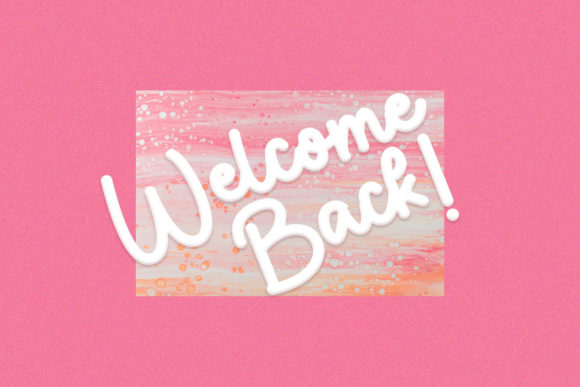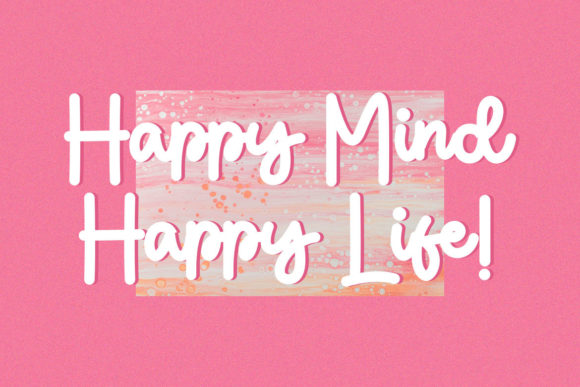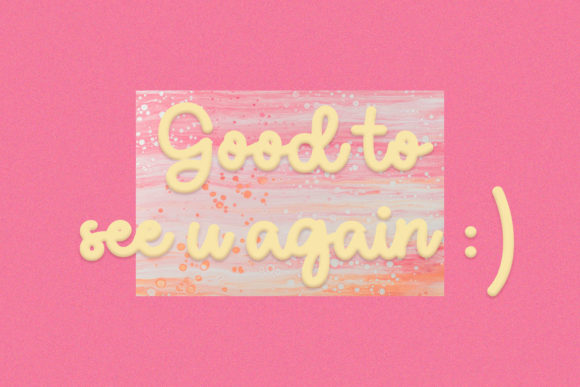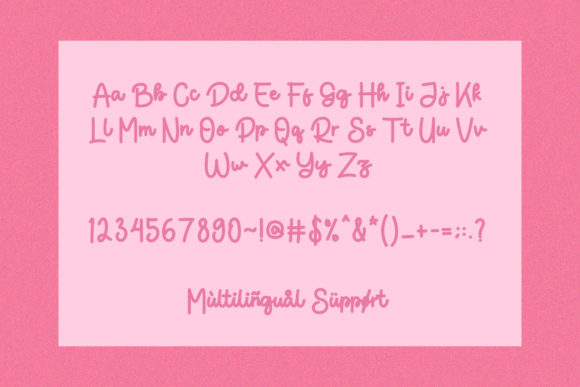
The Perfect Brush Stroke: Unlocking the Potential of Donathe Font
Have you ever been working on a project, staring at a blank page or screen, and suddenly, a spark of creativity strikes? The words flow effortlessly, and your design comes to life in a way that feels almost magical. That’s what happens when you have the right tools at your disposal – and the Donathe Font is one of those game-changing assets.
This charming, cursive paint-brushed handwritten font is more than just a pretty face. It’s a versatile and valuable addition to any designer’s library, capable of elevating even the simplest creations into something truly special. Whether you’re working on a children’s book, a wedding invitation, or a social media campaign, Donathe Font has the potential to add a touch of warmth and personality to your work.
- Unique Characteristics: Donathe Font features a unique, hand-drawn style with intricate details and subtle nuances, giving it a distinctive and elegant appearance.
Donathe Font Review
Donathe Font is an elegant script font that caught my attention with its ✨ delicate curves and refined feel. The font is perfect for creating a sophisticated and luxurious atmosphere, making it ideal for branding, packaging, and advertising.
Here are some features that work well:
- ✨ Elegant and refined feel, perfect for luxury brands
- ✨ Delicate curves and beautiful letterforms
- ✨ Suitable for various applications, including branding, packaging, and advertising
- ⚠️ Limited font sizes and weights, which may limit its versatility
- ⚠️ Not suitable for body text, as it can be difficult to read in small sizes
Overall, Donathe Font is a beautiful and elegant script font that is perfect for creating a luxurious atmosphere. While it has some limitations, its unique features and refined feel make it a great addition to any designer’s toolkit. With some careful selection of font sizes and weights, Donathe Font can be a powerful tool for creating visually stunning designs.
Getting the Most Out of Donathe Font
Alternatives to Donathe Font
Playfair Display is a luxurious, high-end serif font perfect for creating a sense of elegance and sophistication. It’s ideal for use in high-end branding, luxury goods, and premium services.
Compared to Donathe Font, Playfair Display has a more classic and traditional feel, with intricate details and flourishes. While Donathe Font is more versatile and modern, Playfair Display excels at creating a sense of luxury and refinement.
Great Vibes is a modern script font that’s perfect for creating a sense of playfulness and whimsy. It’s ideal for use in creative industries, such as fashion, music, and art.
Compared to Donathe Font, Great Vibes has a more fluid and dynamic feel, with a sense of movement and energy. While Donathe Font is more versatile and adaptable, Great Vibes excels at creating a sense of fun and playfulness.